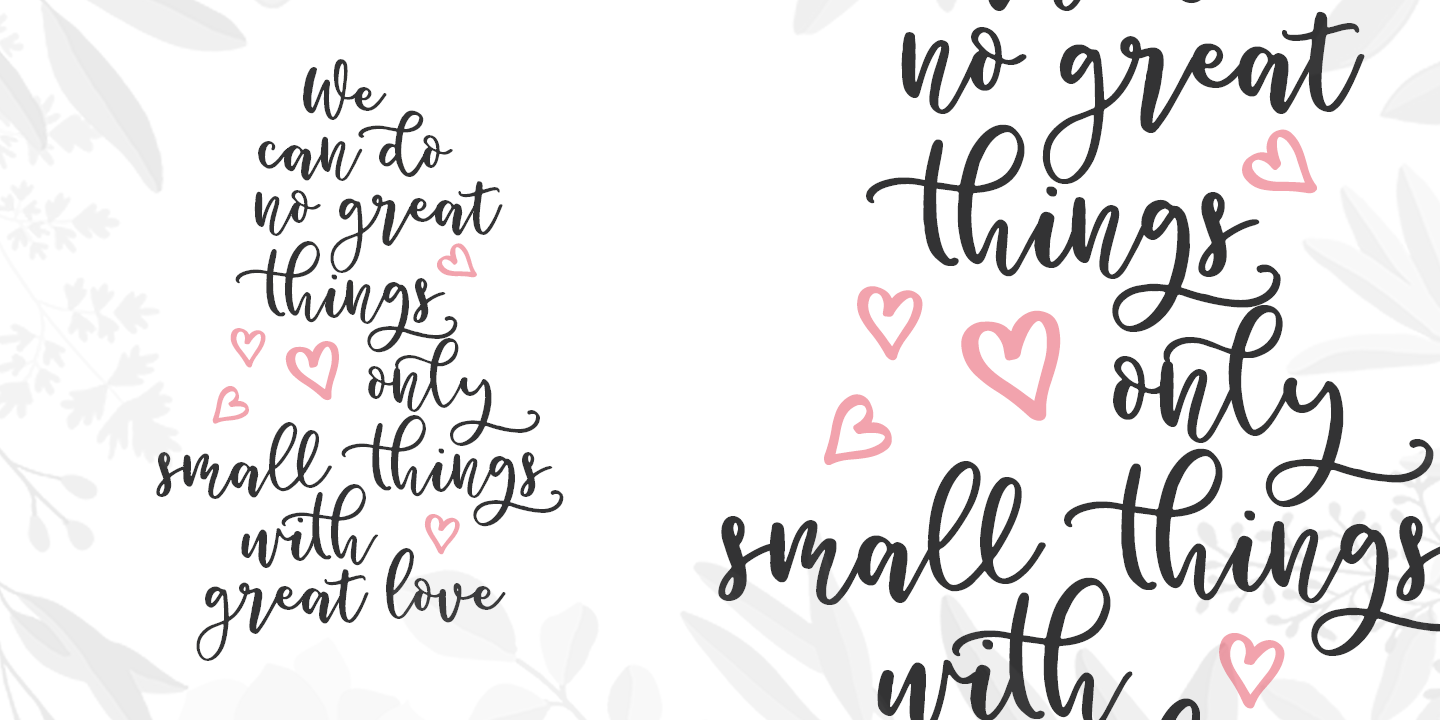
Orchard Trees Font excels in agricultural design applications including organic farm branding, fruit orchard signage, farmers market materials, agricultural product packaging, rural tourism campaigns, harvest festival promotions, sustainable agriculture communications, farm-to-table restaurant identities, artisan cider companies, and natural lifestyle brands. This earthy typeface brings authentic agricultural character to farm-focused design projects.
What makes Orchard Trees Font truly exciting is its perfect embodiment of natural growth patterns with letterforms that mirror the organic shapes and seasonal rhythms found in fruit-bearing trees. The font features branch-inspired characters with organic curves and natural proportions that evoke apple blossoms, growing seasons, and bountiful harvests. Its agricultural personality and seasonal charm make it ideal for brands celebrating sustainable farming, organic living, and audiences who value farm-fresh quality, seasonal eating, and the wholesome connection between nature's cycles and nourishing food production.
The Orchard Trees Font family typically includes multiple weights with potential seasonal variations and organic elements that enhance its agricultural character. These natural options provide designers with complete farm styling while maintaining the font's distinctive harvest elegance and organic presentation across various agricultural applications and seasonal contexts.
Whether you're developing farm branding, creating agricultural campaigns, or designing harvest-themed materials, Orchard Trees Font Free Download delivers the agricultural authority and natural sophistication that farm-focused projects require. Its exceptional earthiness and harvest appeal make it invaluable for designers working with agricultural businesses, organic brands, and farm-to-table organizations requiring typography that celebrates agricultural heritage, seasonal abundance, and the timeless connection between careful cultivation and the natural bounty that sustains communities through honest farming and sustainable agricultural practices.